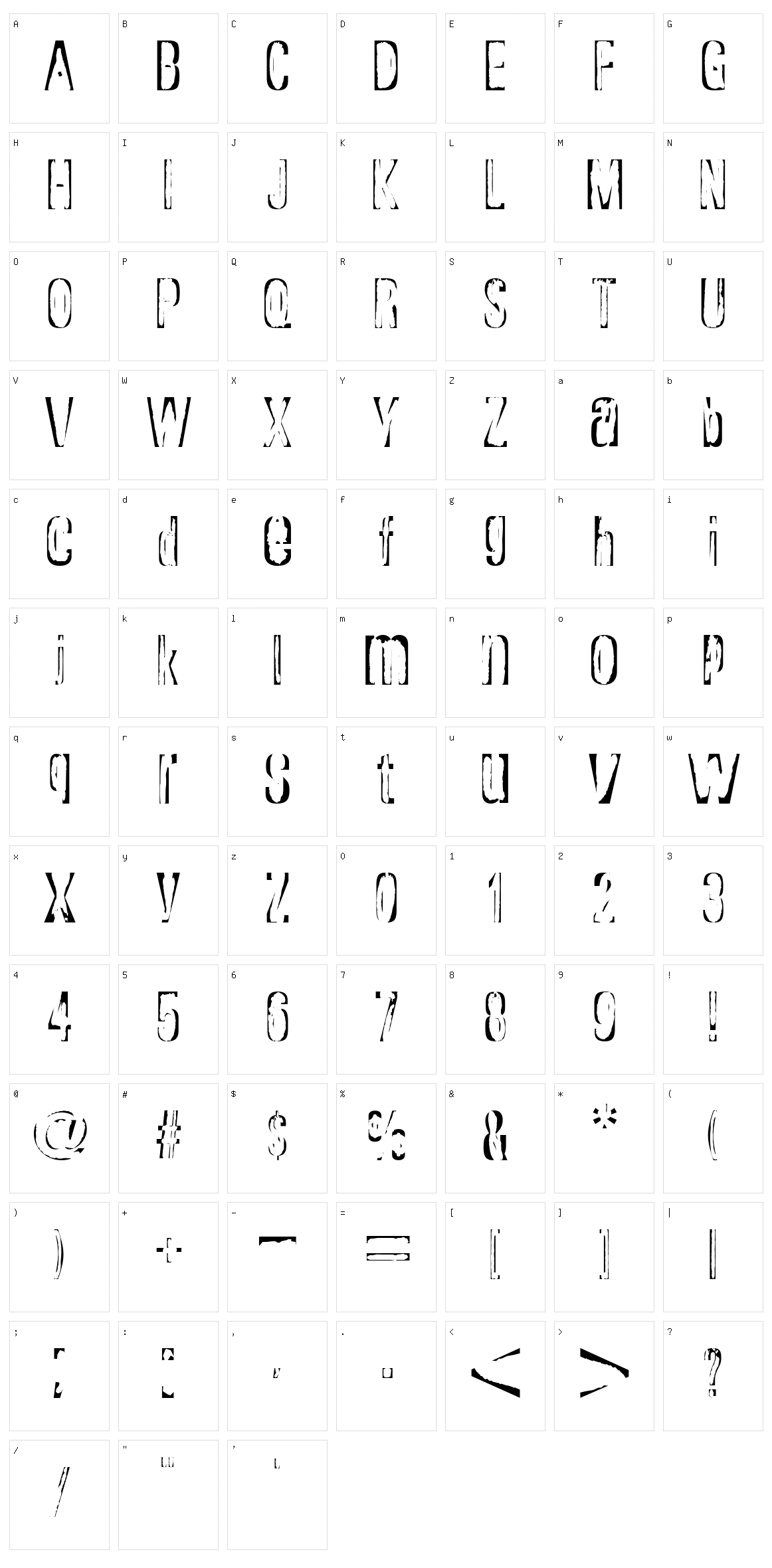
The free font Rapture is carefully designed by Illegal Industriez Design, showcasing a thoughtful balance of creativity and usability and falls under the Destroy font style. When you download the ZIP file, it contains only 35.55 KB of font files, making it lightweight and quick to download. Please review the license details below to understand permitted usage and distribution rights. If license information is not available, we recommend using this font for personal projects only or contacting the author directly for commercial usage permissions.